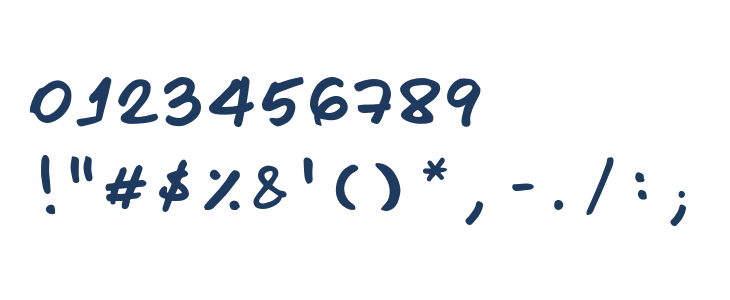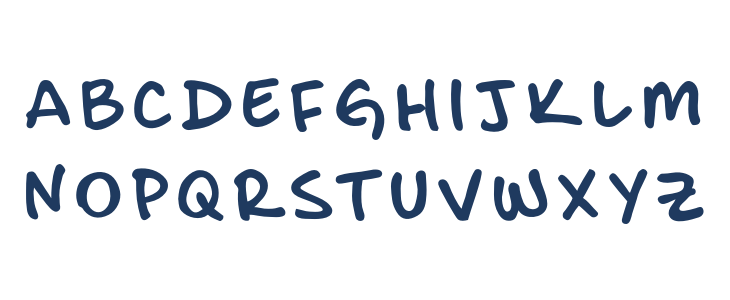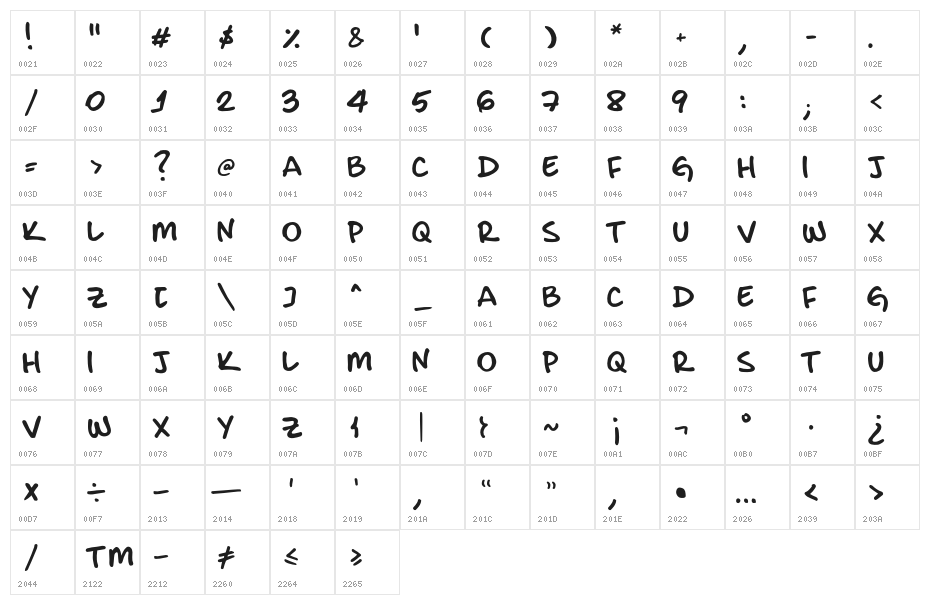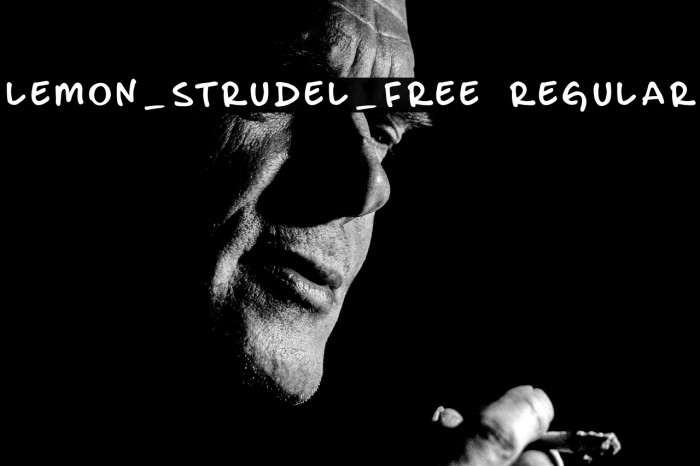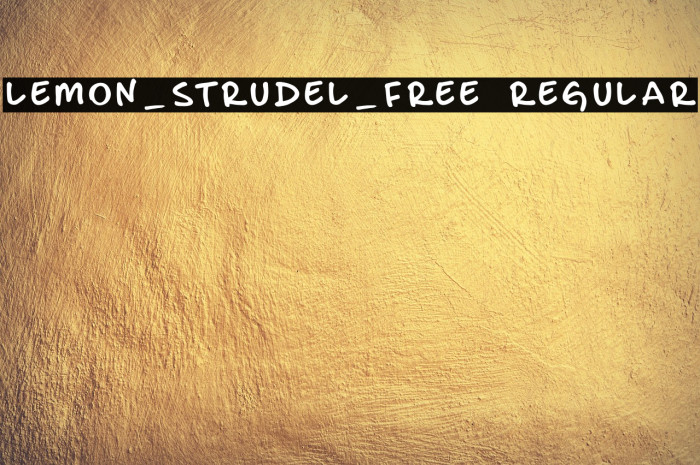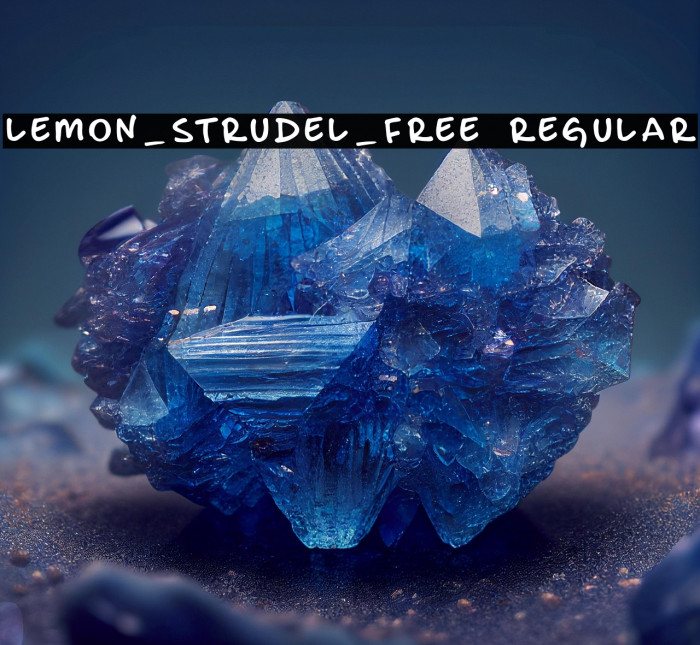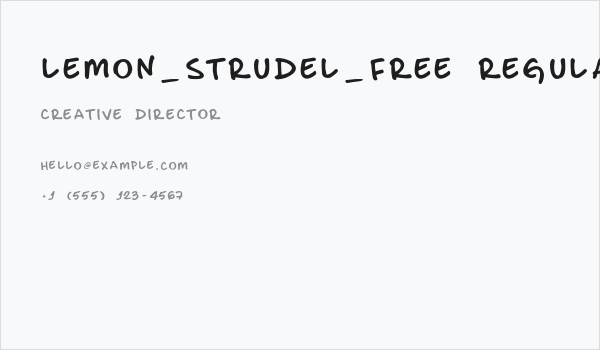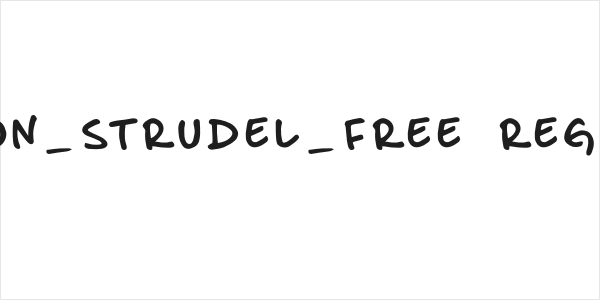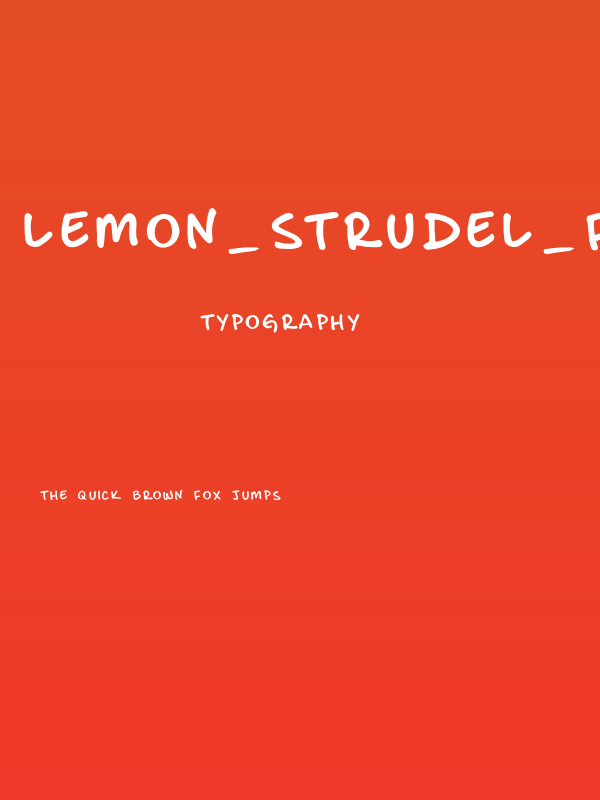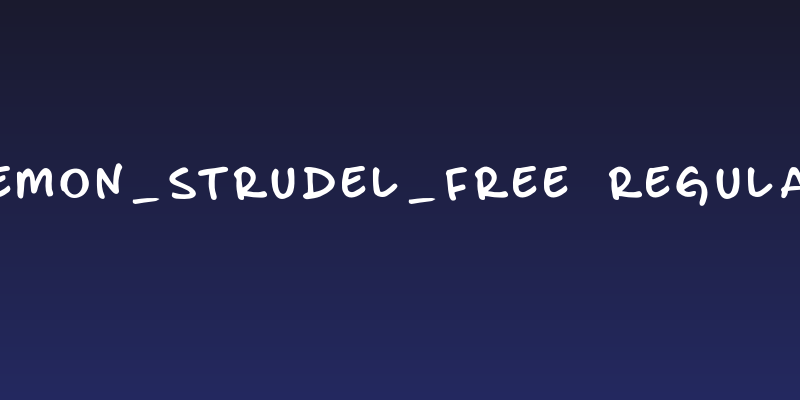
lemon_strudel_free Regular Font
lemon_strudel_free Regular Description
A casual, handwritten-style font with rounded, playful characters and consistent stroke weight, resembling natural marker or brush pen writing.
| Overall Style | Casual, playful, and friendly |
| Use Case | Headlines, informal text, logos, and decorative text |
| Proposed Projects | Informal invitations, children's books, greeting cards, casual branding, and social media graphics. |